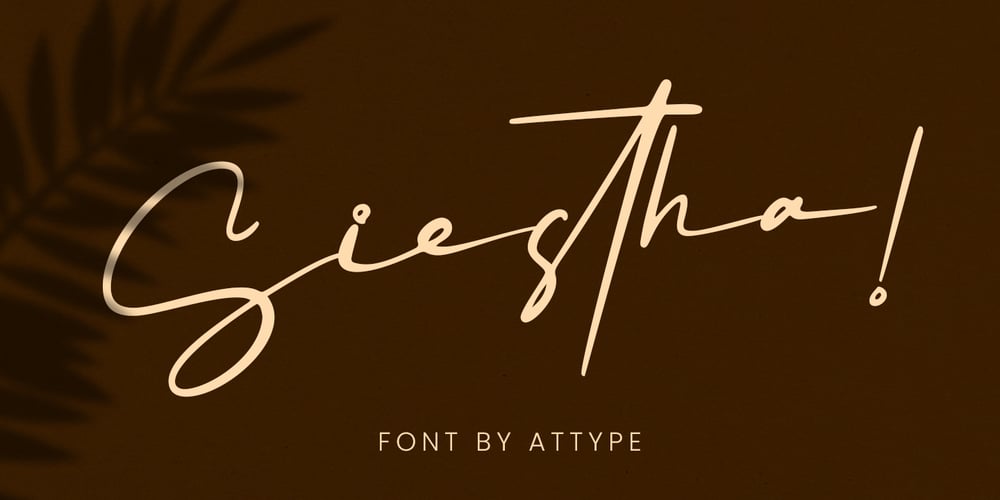
Siestha
Siestha font
Siestha Font Family was designed by Fadli Ramadhan Iskandar and published by Attype Studio. Siestha contains 1 styles and family package options. Siestha is a stylish signature font with more than 90 ligatures and ending stylistic set that make amazing combination. It is perfect for any product like branding, invitations, stationery, wedding designs, social media posts, advertisements, product packaging, product designs, label, photography, watermark, special events and more.What’s included:- Multilingual Support- More than 90 ligatures- Ending stylistic set- Support OpenType features—Hope you enjoy with our font!Attype Studio